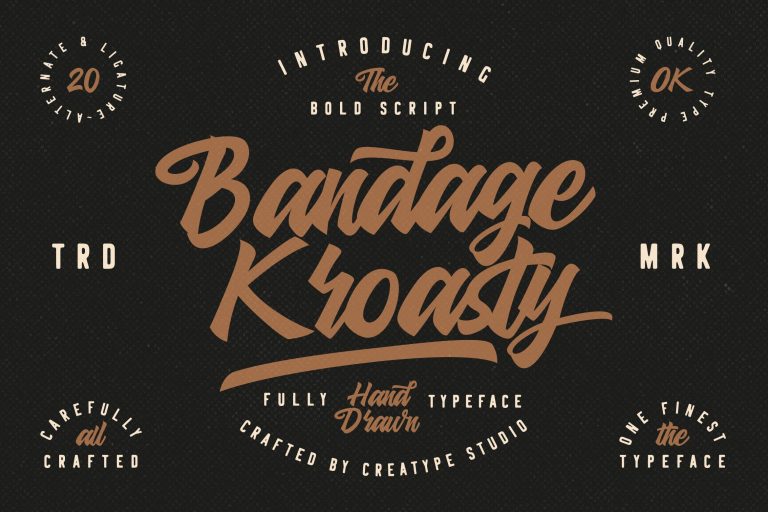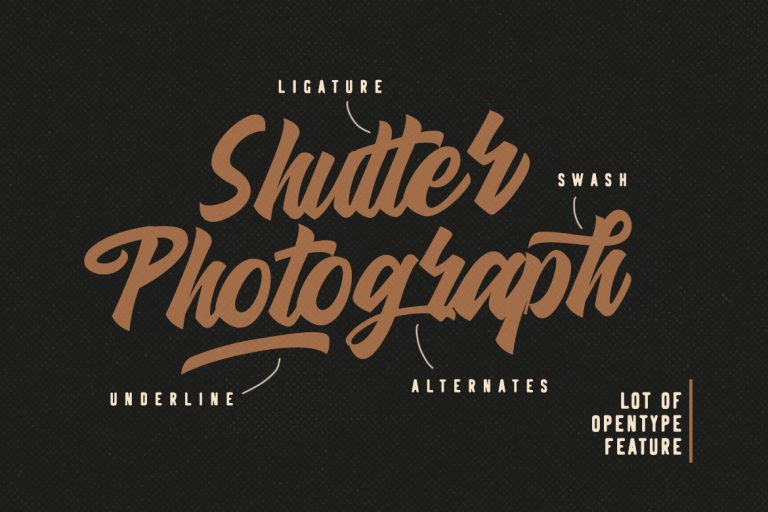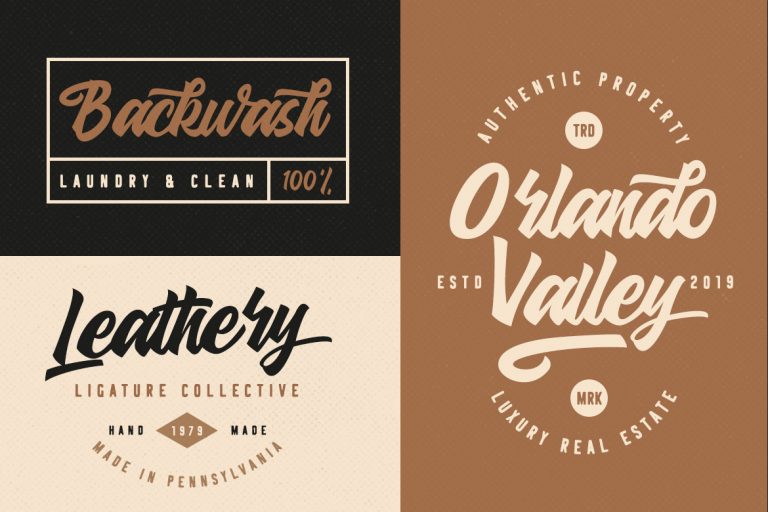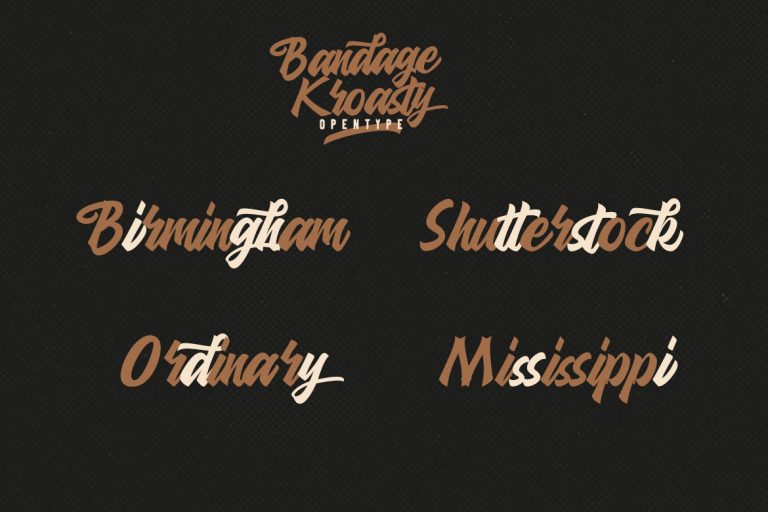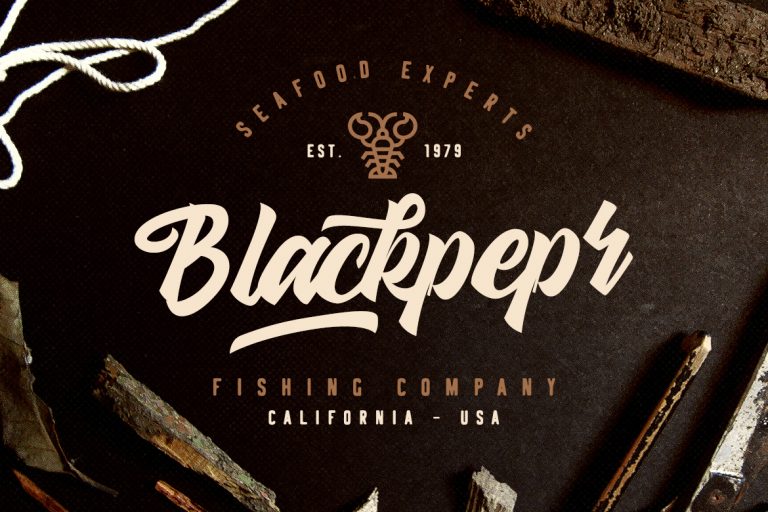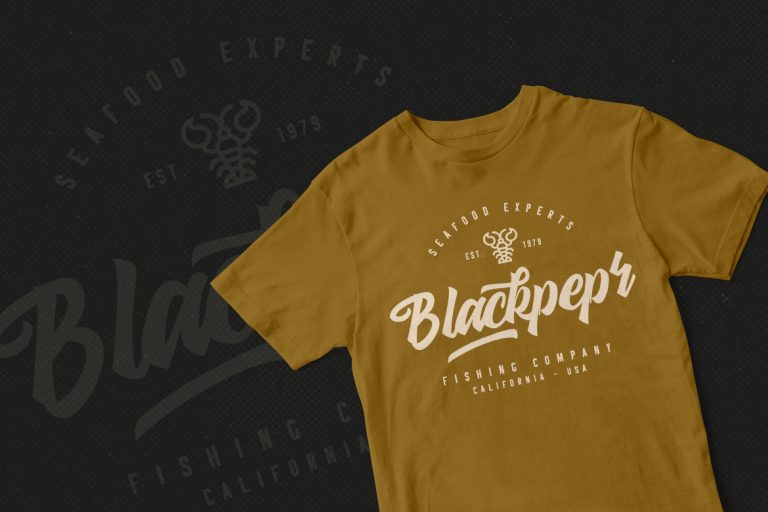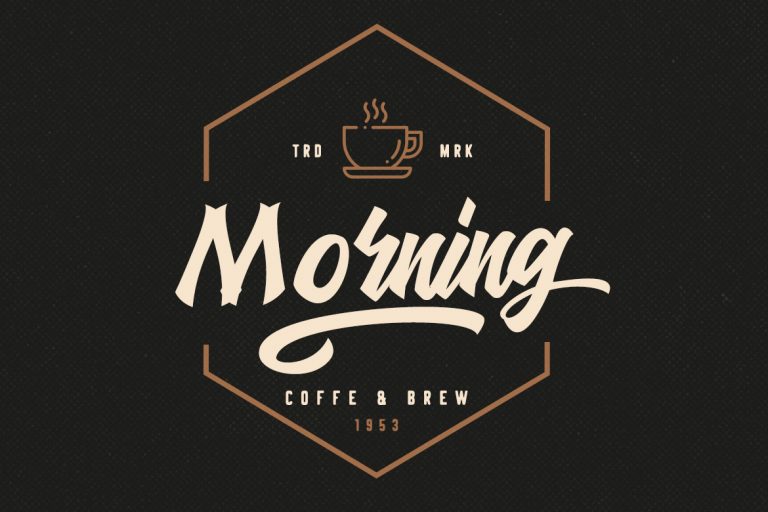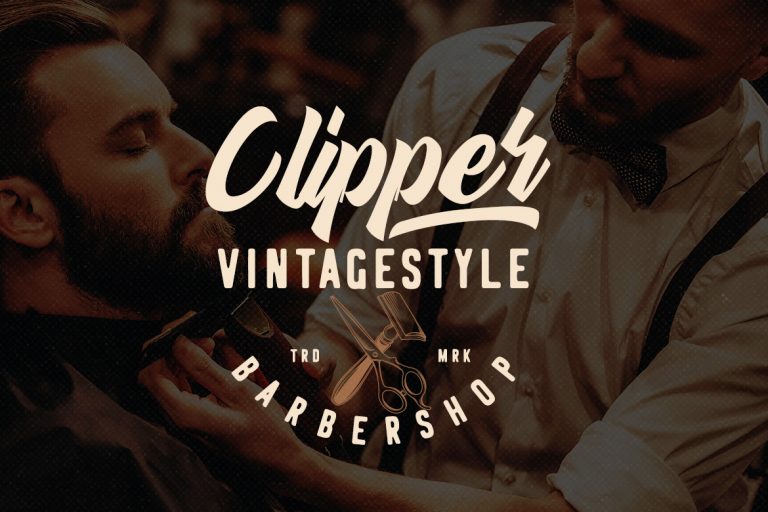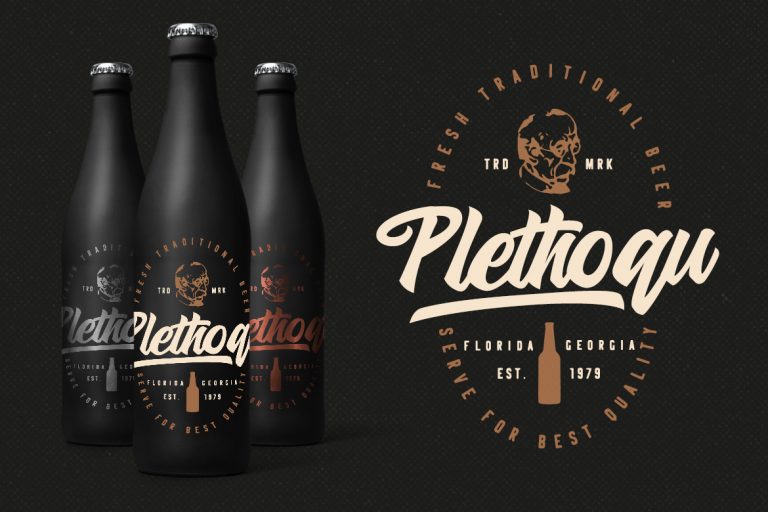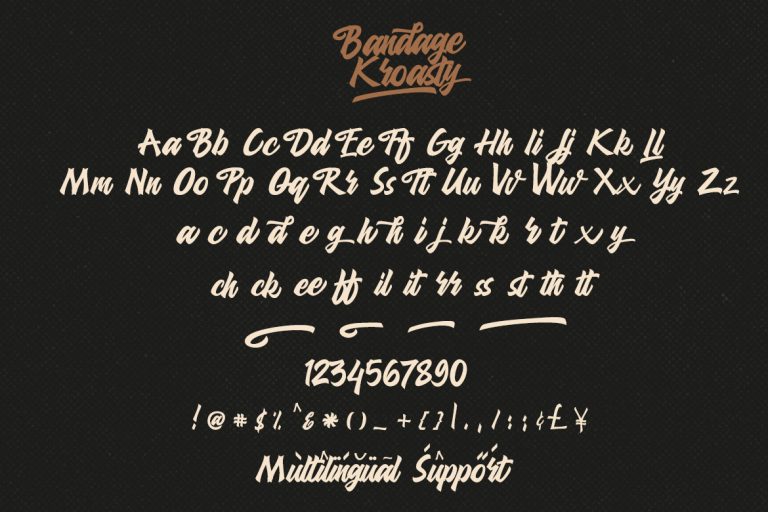
Bandage Kroasty is a old time vintage looks font script with natural handlettering movement, this font is great for your latest project.
Bandage Kroasty is perfect for branding projects, logo, wedding designs, social media posts, advertisements, product packaging, product designs, label, photography, watermark, invitation, stationery and any projects that need handwriting taste.
- Ton of glyphs (include Uppercase, Lowercase, Numerals & Punctuations, Ligature, Swashes)
- Ligature & Stylistic alternate
- Fonts include multilingual support for; Afrikaans, Albanian, Catalan, Danish, Dutch, English, French, Hungarian, Icelandic, Italian, Spanish, Portuguese, German, Swedish, Norweigen, Polish, Indonesian, Turkish, Zulu
Bandage Kroasty Script